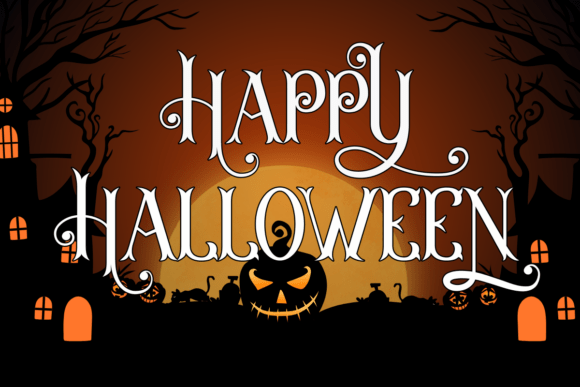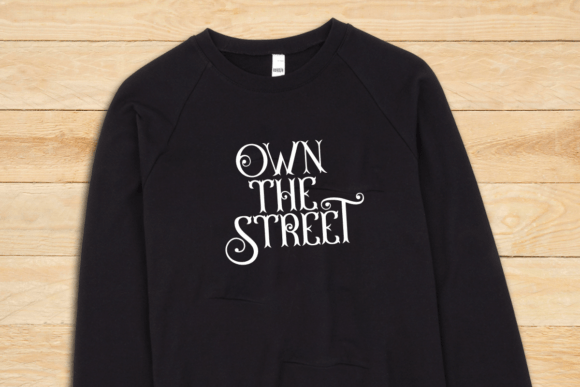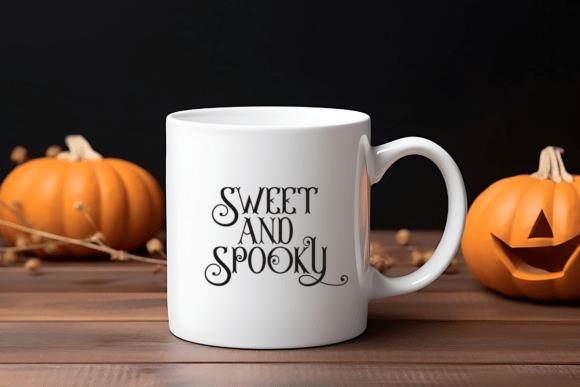
Introduction to Midnight Halloween Font
As the clock strikes midnight on Halloween night, the air is filled with an eerie yet magical atmosphere. The flickering jack-o-lanterns cast an otherworldly glow, and the sound of howling wind sends shivers down your spine. It’s the perfect time to unleash your creativity and tap into the spooky spirit of the season. If you’re a designer looking for a way to add a touch of elegance and mystery to your Halloween-themed projects, you’re in luck.
The Midnight Halloween Font is a stunning display font that perfectly captures the essence of Halloween. With its tall, sharp characters and dramatic swirls, this font is sure to make your designs stand out. Whether you’re creating spooky-themed invitations, tote bags, or stickers, the Midnight Halloween Font is a valuable design resource that will elevate your work to the next level.
What sets the Midnight Halloween Font apart is its high-quality design, which makes it perfect for a variety of creative projects. Plus, with a transparent background, you can easily layer it over other design elements to create a truly unique look. And the best part? It’s available for free download, making it an accessible design resource for designers of all levels.
Key Features of Midnight Halloween Font
- Unique Gothic-inspired design, perfect for creative projects with a spooky twist.
- Perfect for creating invitations, posters, and other design elements for Halloween-themed events or parties.
Honest Review: Midnight Halloween Font
I recently stumbled upon the Midnight Halloween Font, and I must say it’s been a great addition to my design resource collection. The font is perfect for any creative project that requires a spooky or mysterious vibe.
- ✨ The font is a high-quality download with crisp lines and a clear, transparent background.
- ✨ The font is incredibly versatile and can be used for a variety of design projects, from invitations to social media graphics.
- ⚠️ The font may not be suitable for projects that require a more modern or minimalist aesthetic.
- ⚠️ The font may be a bit too ornate for some designs, so be sure to use it sparingly.
Overall, I’m really impressed with the Midnight Halloween Font. It’s a great addition to any designer’s toolkit and is sure to add a touch of creativity to any project. If you’re looking for a high-quality, free font for your next design project, I’d definitely recommend giving the Midnight Halloween Font a try.
To maximize the impact of your design project, use the Midnight Halloween Font in conjunction with other design elements, such as images, textures, and colors. Experiment with different font sizes, styles, and combinations to achieve a unique look.
The Midnight Halloween Font is particularly suited for creative projects, including:
- Halloween-themed invitations and decorations
- Spooky-themed social media graphics and advertisements
- Creepy atmospheric posters and flyers